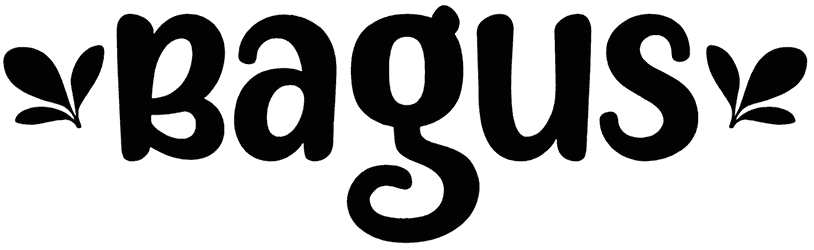
Bagus Font
Bagus is a fresh handwritten font that is insanely perfect for a wide set of graphic content, ranging from covers, banners, greeting cards, and brochures, to packaging. This font can bring a sense of juvenile, playfulness, sympathy, or captivation to your artwork. Just in case you are looking for a food font similar to this one, we invite you to visit our rich archive.